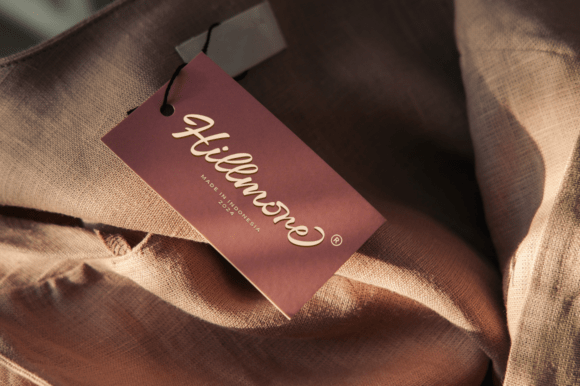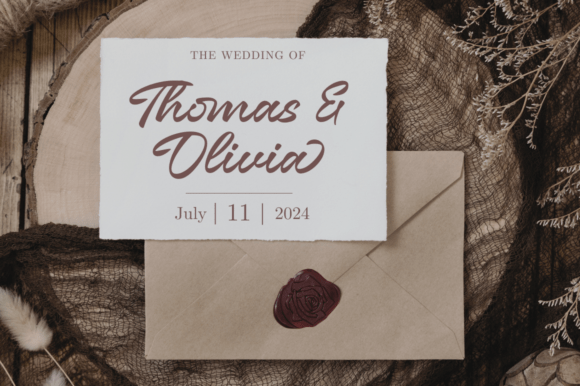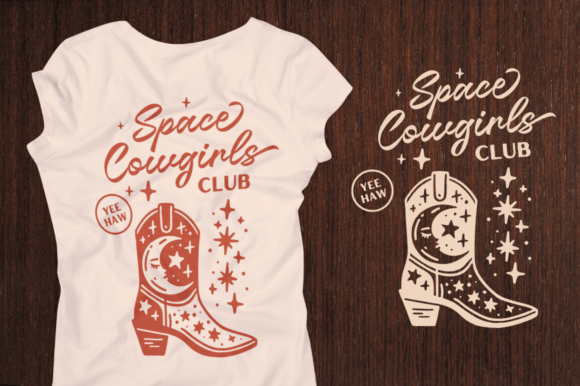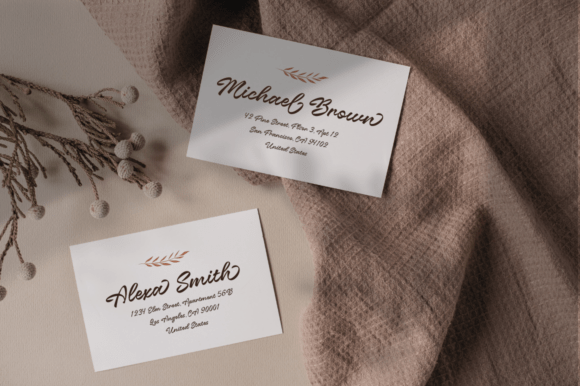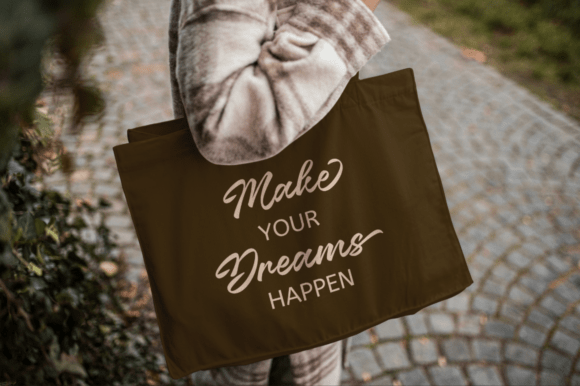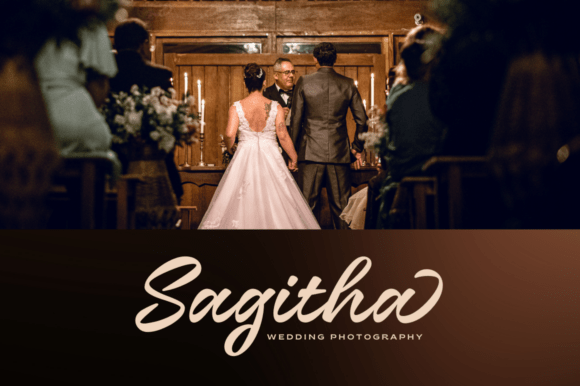
Introducing Almonia Blonde: The Elegant Script Font for Sophisticated Designs
In the world of typography, a font can make or break the aesthetic of a design project. For those seeking to add a touch of elegance and sophistication to their creations, look no further than Almonia Blonde. This stunning script font is designed to embody the essence of luxury and refinement, making it perfect for a wide range of applications, from wedding invitations and logos to branding materials and more.
The Beauty of Handcrafted Lettering
Almonia Blonde boasts a flowing, handcrafted lettering style that exudes a sense of artistry and craftsmanship. Each letter has been carefully designed to showcase a unique blend of classic elegance and modern flair, resulting in a font that is both timeless and contemporary. The flowing connections between letters create a sense of movement and fluidity, adding a dynamic touch to any design.
Versatile Alternates for Endless Possibilities
One of the standout features of Almonia Blonde is its versatile alternates. The font comes with a range of alternate characters, allowing designers to experiment with different styles and variations. This versatility makes it easy to tailor the font to suit specific design needs, ensuring that each project stands out from the crowd. Whether you’re looking for a more formal, elegant look or a more playful, whimsical feel, Almonia Blonde’s alternates have got you covered.
Perfect for a Range of Design Applications
Almonia Blonde’s versatility extends beyond its alternates, making it suitable for a wide range of design applications. Here are just a few examples of how this stunning script font can elevate your design projects:
- Wedding Invitations: Add a touch of romance and sophistication to your wedding invitations with Almonia Blonde. The font’s elegant lettering and flowing connections create a beautiful, high-end look that’s sure to impress.
- Logos and Branding: Establish your brand’s identity with a custom logo or branding materials featuring Almonia Blonde. The font’s luxurious feel and refined style make it perfect for businesses seeking to convey a sense of elegance and sophistication.
- Stationery and Packaging: Elevate your stationery and packaging designs with Almonia Blonde’s elegant lettering. From business cards to product labels, this font adds a touch of refinement and style to any design.
Why Choose Almonia Blonde?
With so many fonts available, why choose Almonia Blonde? Here are just a few reasons why designers and crafters are falling in love with this stunning script font:
- Timeless Elegance: Almonia Blonde’s classic lettering style ensures that your designs will remain timeless and relevant for years to come.
- High-Quality Design: Each letter has been carefully crafted to ensure a high level of quality and attention to detail.
- Versatility: With its range of alternates and suitability for various design applications, Almonia Blonde is an incredibly versatile font that can be used in a wide range of projects.
In conclusion, Almonia Blonde is a stunning script font that embodies elegance, beauty, and sophistication. Its flowing, handcrafted lettering and versatile alternates make it perfect for adding a touch of luxury to any design project. Whether you’re a designer, crafter, or simply someone who appreciates beautiful typography, Almonia Blonde is sure to impress. So why wait? Experience the timeless charm and refined style of Almonia Blonde and elevate your design projects to new heights.